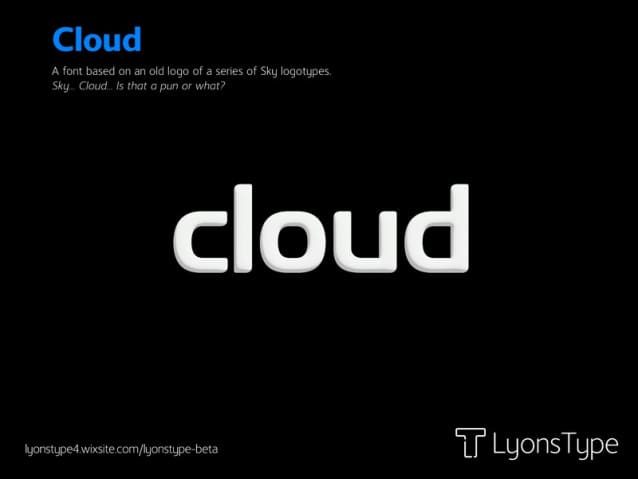
Cloud Sans Font
Cloud Sans Font, is a sans serif  stunning when combined or separately. This sans serif font style is legible and stunningly designed.